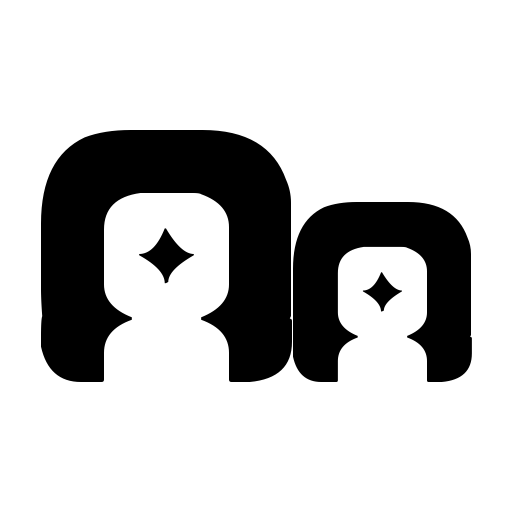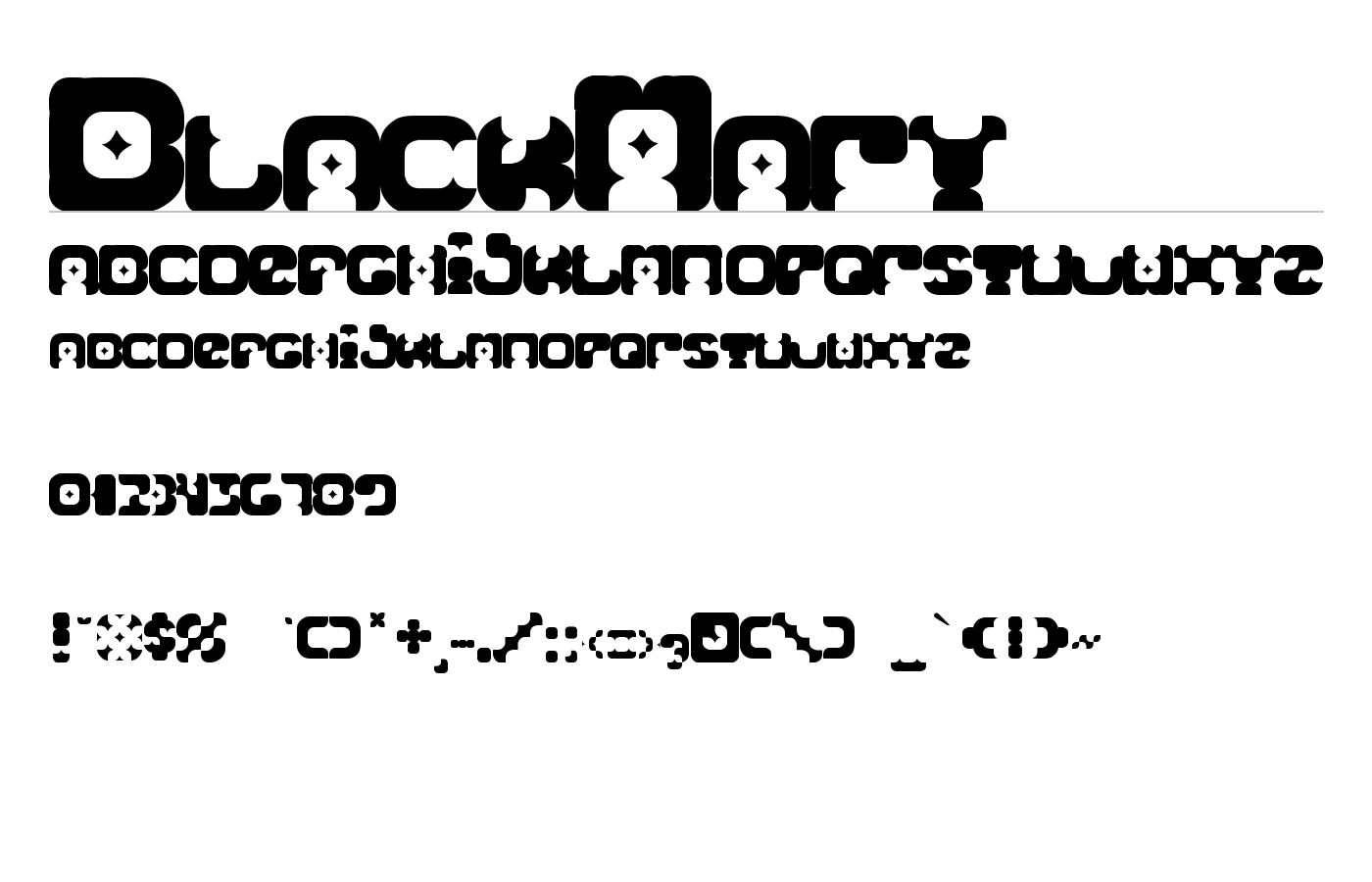
BlackMary is a bold, playful sans serif font with a unique geometric style and high contrast between thick strokes and cut-out shapes that create a striking visual rhythm. Its rounded forms and quirky star-shaped cutouts give it a modern, futuristic feel, making it perfect for eye-catching logos, posters, or creative branding where a fun and distinctive look is desired. This font works well in display settings rather than body text, thanks to its strong personality and decorative details.
BlackMary Font